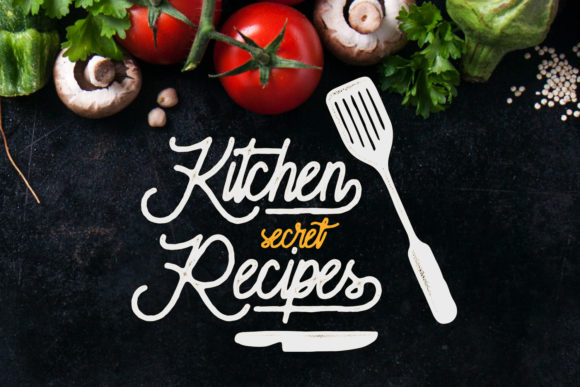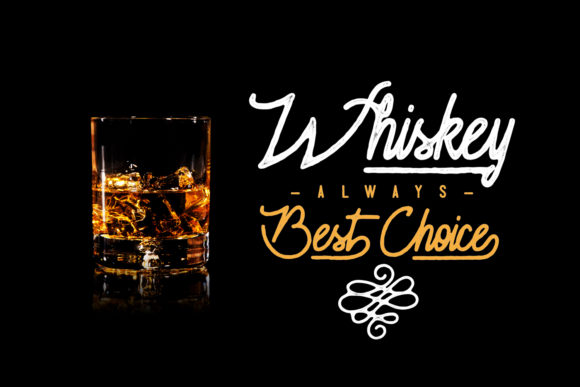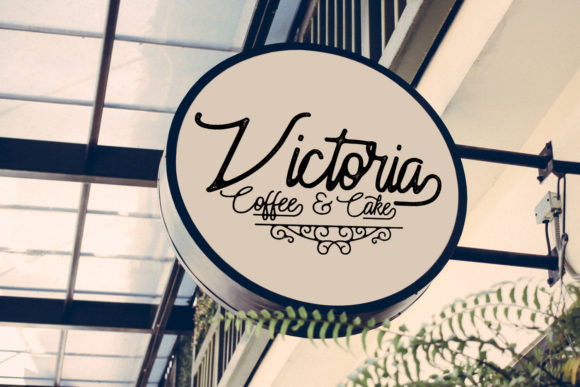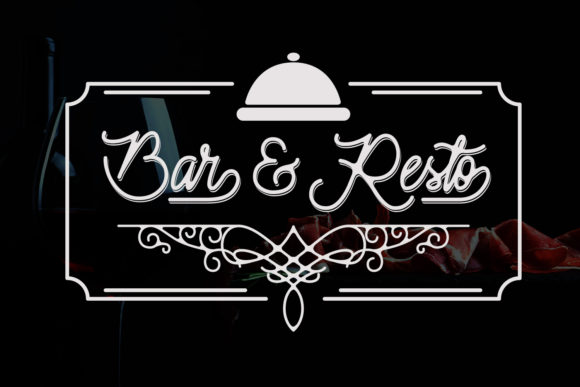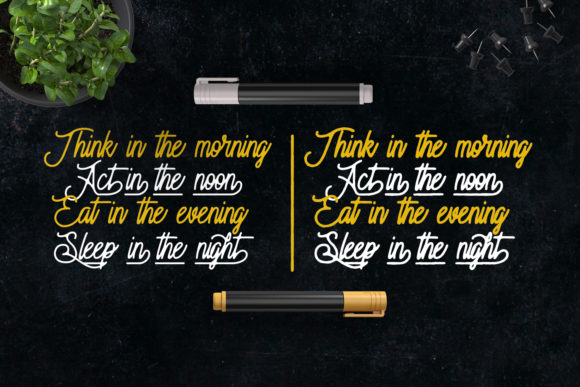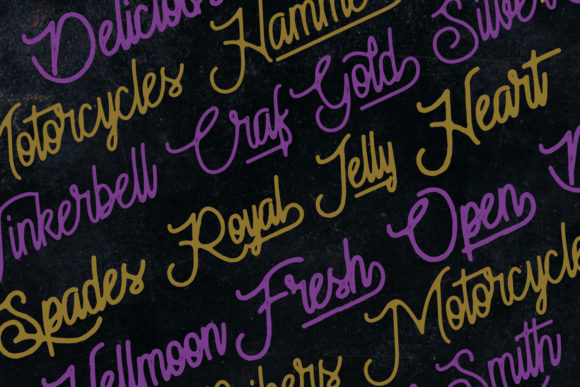
Introduction to Moonchrome Font
Remember that moment when you’re working on a design project, and you’re stuck on finding the perfect font to match your vision? The search is over! Introducing the Moonchrome Font, a charming and bold handwritten font that will add an undeniable charm to your creative project.
Whether you’re a seasoned designer or just starting out, having access to high-quality design resources like the Moonchrome Font can be a game-changer. With its unique feel and transparent background, this font is perfect for designers who want to add a personal touch to their work.
Key Features of Moonchrome Font
- Features a unique, modern design with a transparent background, allowing for seamless integration into various design elements.
- Includes 200+ glyphs, including uppercase and lowercase letters, numbers, and punctuation marks, making it a versatile font for various creative projects.
- Perfect for use in digital design, such as website headers, social media graphics, and mobile app interfaces, due to its modern and sleek aesthetic.
Honest Review: Moonchrome Font
I recently stumbled upon the Moonchrome Font, and I must say, it’s been a game-changer for my design projects. The Moonchrome Font is a high-quality, free download that I’ve found incredibly useful.
Here are some things that work well with this font: ✨
- Its sleek and modern design makes it perfect for creative projects.
- The font is available in various weights, making it easy to mix and match for different design needs.
- One of the standout features of the Moonchrome Font is its transparent background, which makes it ideal for designing with a clean and minimalist aesthetic.
- The font may not be as versatile as some other design resources, and it may not be suitable for projects that require a lot of bold or dramatic typography.
Overall, I’m really impressed with the Moonchrome Font. It’s a great addition to my design toolkit, and I’ve found it to be a valuable resource for my creative projects. If you’re looking for a high-quality, free font with a clean and modern aesthetic, I would definitely recommend checking it out.
The Moonchrome Font is a high-quality design resource that offers a unique and stylish look for your creative project. With its sleek and modern design, this font is perfect for designers and artists who want to add a touch of sophistication to their work.
To get the most out of the Moonchrome Font, try using it with a transparent background to create a seamless and modern design. You can also experiment with different font sizes and colors to add depth and interest to your design.
The Moonchrome Font is perfect for a variety of creative projects, including:
- Graphic design and visual arts